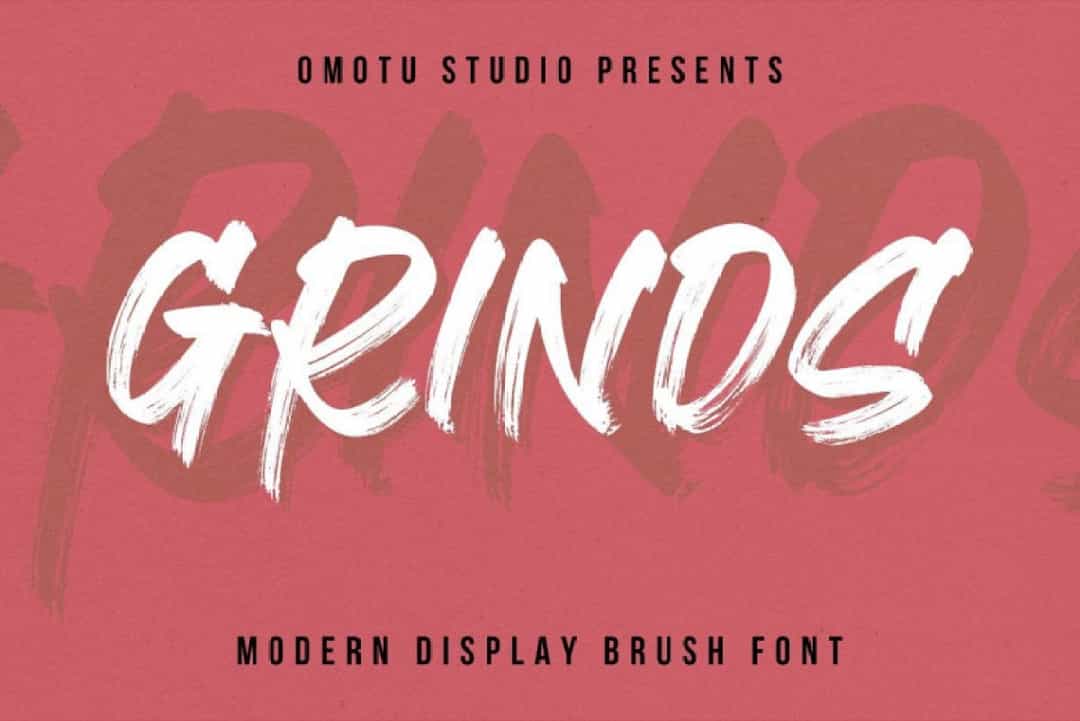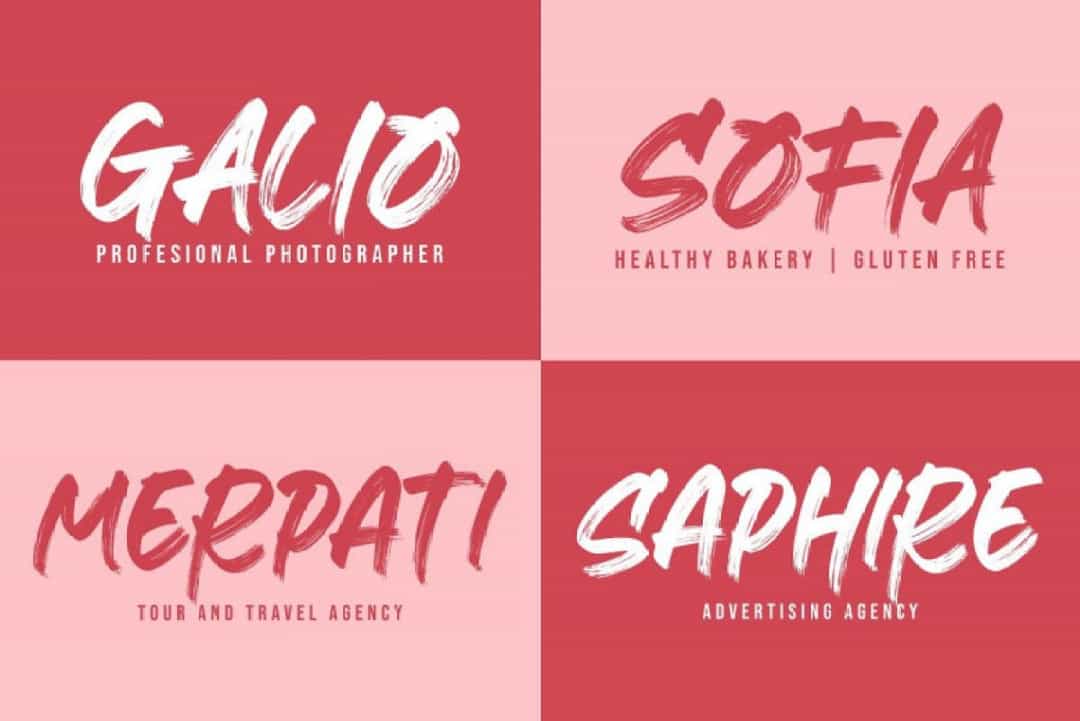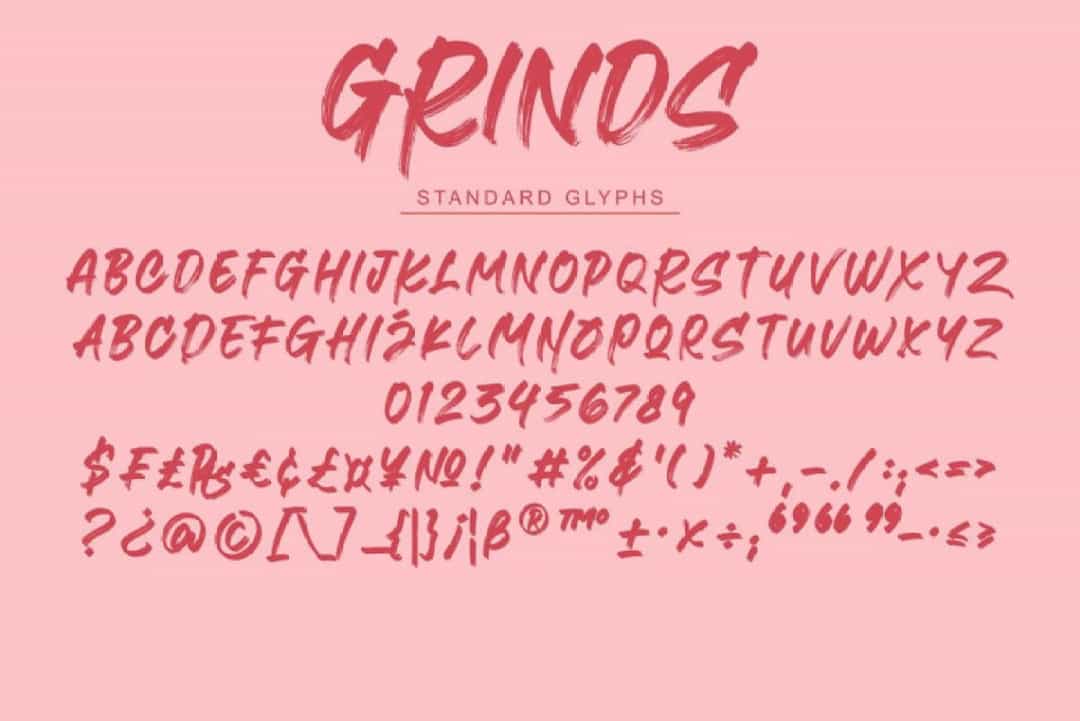
Discover Grinds Font, part of the Brush collection—a versatile and unique font perfect for adding a personal touch to your projects. Download it for free and enjoy crafting designs with style, from invitations to social media posts. This font is available exclusively for personal use, giving you the freedom to create without limits. Unlock your creativity with Grinds Font today!
GRINDS! A handwritten display brush font. Perfect for logotypes, branding and apparel designs such as T-shirt Hoodie packages Flyer quotes poster design book covers advertising etc.